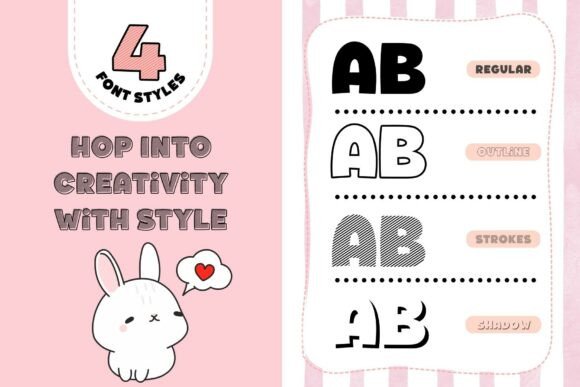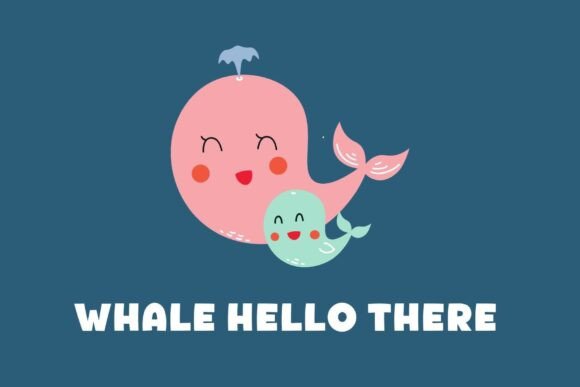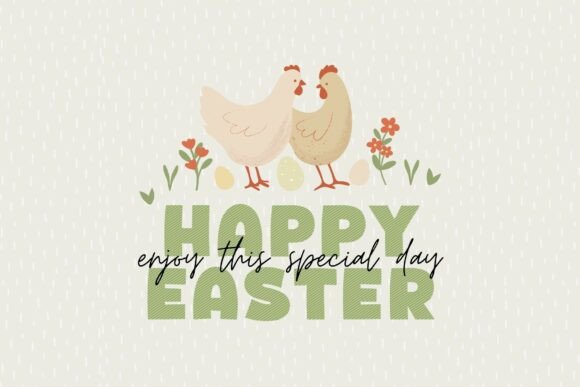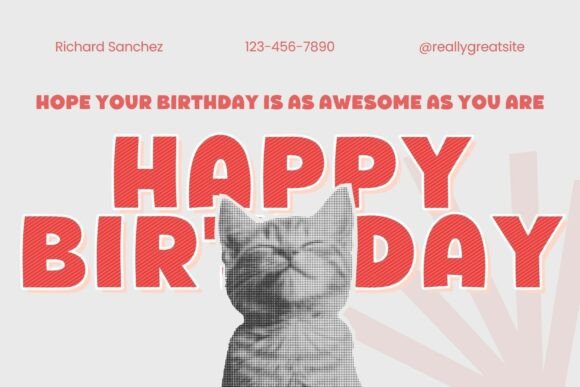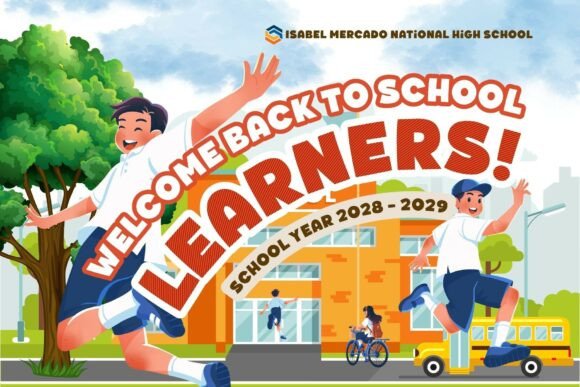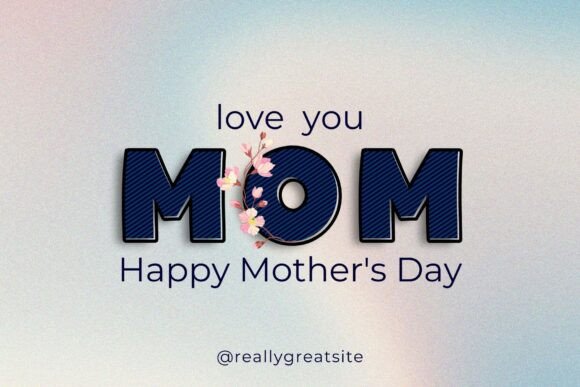
Unleash Your Creativity with the Cutest Font Around!
Have you ever stared at a blank page, trying to come up with the perfect title for your latest design project, only to find yourself scrolling through font options for what feels like hours? We’ve all been there! But what if I told you there’s a font that’s sure to make your creative process a whole lot easier?
Enter the Fox Nibble Font, a playful and chunky display font designed to bring a sense of joy and warmth to your projects. With its bold, rounded shapes and 4 distinct styles, it’s the perfect choice for creators who want to add a “cutesy” yet professional touch to their work. Whether you’re designing for kids, branding a bakery, or creating viral social media content, the Fox Nibble Font provides the versatility you need to make your titles pop!
Fox Nibble Font Key Features
- Unique Characteristics: The font features a unique, nibbled design that gives it a distinctive and playful appearance, making it perfect for creative and whimsical projects.
Designer Review: Fox Nibble Font
I recently had the chance to work with the Fox Nibble Font, and I’m excited to share my honest review with you.
- Playful personality: Fox Nibble Font has a quirky and whimsical feel to it, perfect for projects that need a touch of fun and personality.
- Customization options: The font offers a range of weights and styles, allowing you to tailor it to your specific design needs.
- Legibility: Despite its playful nature, Fox Nibble Font is surprisingly legible, making it a great choice for body text or headlines.
- Limited use in formal settings: Fox Nibble Font’s playful personality might not be suitable for formal or professional projects.
- Not ideal for small text sizes: The font’s unique characteristics can make it difficult to read at small text sizes.
The Fox Nibble Font is a fun and versatile font that can add a touch of personality to your designs. While it may not be suitable for every project, it’s a great choice for projects that need a playful and whimsical feel. With its customization options and legibility, it’s definitely worth considering for your next design project.
Tips for Getting the Most Out of Fox Nibble Font
For best results, use Fox Nibble Font in bold or italic styles to add emphasis to your text.
Combine Fox Nibble Font with other playful fonts to create a unique and eye-catching design.
Fox Nibble Font is perfect for:
- Children’s book covers and illustrations.
- Party invitations and decorations.
- Food and beverage branding.
Alternatives to Fox Nibble Font
1. Pacifico
Pacifico is a beautiful, elegant script font that is ideal for creating a warm and inviting atmosphere in your designs. It’s perfect for use in wedding invitations, greeting cards, and other materials where a touch of sophistication is needed. Compared to Fox Nibble Font, Pacifico has a more refined and delicate feel, making it a better choice for designs that require a sense of luxury.
Great Vibes is a fun and playful script font that is perfect for designs that require a sense of energy and excitement. It’s ideal for use in social media graphics, advertisements, and other materials where you want to grab the viewer’s attention. Compared to Fox Nibble Font, Great Vibes has a more casual and relaxed feel, making it a better choice for designs that require a sense of fun and playfulness.